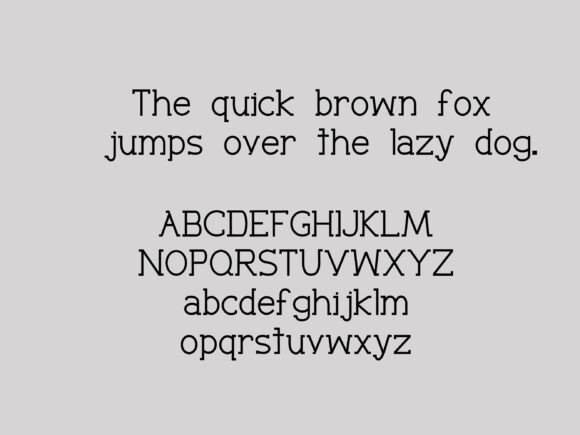
Discovering the Perfect Font for Your Creative Project
Have you ever stared at a blank page, searching for the perfect font to bring your design to life? The right font can make all the difference in elevating your creative project from good to great. And, for many designers, the Mesa Slab Serif Font has become a go-to choice for its unique blend of modernity and vintage charm.
With its clean, high-quality design, Mesa Slab Serif Font brings balance and clarity to every project, making it an invaluable resource for designers. Whether you’re working on a print or digital design, this versatile font is sure to impress. Plus, with its transparent background and easy-to-cut design, it’s perfect for cutting machine crafts and vinyl projects.
Key Features of Mesa Slab Serif Font
- High-quality design for creative projects, offering a sophisticated and elegant look.
- Features a transparent background, allowing for seamless integration into any design.
- Designed with a slab serif style, providing a unique and eye-catching aesthetic.
- Resolution-independent, making it suitable for use at any size without compromising quality.
Honest Review: Mesa Slab Serif Font
I recently stumbled upon the Mesa Slab Serif Font and I’m excited to share my thoughts on it. As a designer, I’m always on the lookout for high-quality design resources to elevate my creative projects. Mesa Slab Serif Font definitely delivers.
- ✨ High-quality typography: The font’s clear and crisp design makes it perfect for body text and headlines.
- ✨ Versatile: It’s suitable for a wide range of creative projects, from brochures to websites.
- ⚠️ Limited language support: The font only supports a limited number of languages, which might be a concern for projects that require multilingual support.
- ⚠️ No transparent background: The font doesn’t have a transparent background option, which might limit its use in certain design scenarios.
Mesa Slab Serif Font
The Mesa Slab Serif Font is a high-quality design resource ideal for creative projects. It features a unique slab serif style with a transparent background, making it a versatile addition to any design.
The Mesa Slab Serif Font is commonly used in creative projects, such as:
- Branding materials
- Print materials
To get the most out of the Mesa Slab Serif Font, try experimenting with different font sizes, colors, and combinations to achieve a unique look. Additionally, use it in conjunction with other design elements to create a cohesive and visually appealing design.